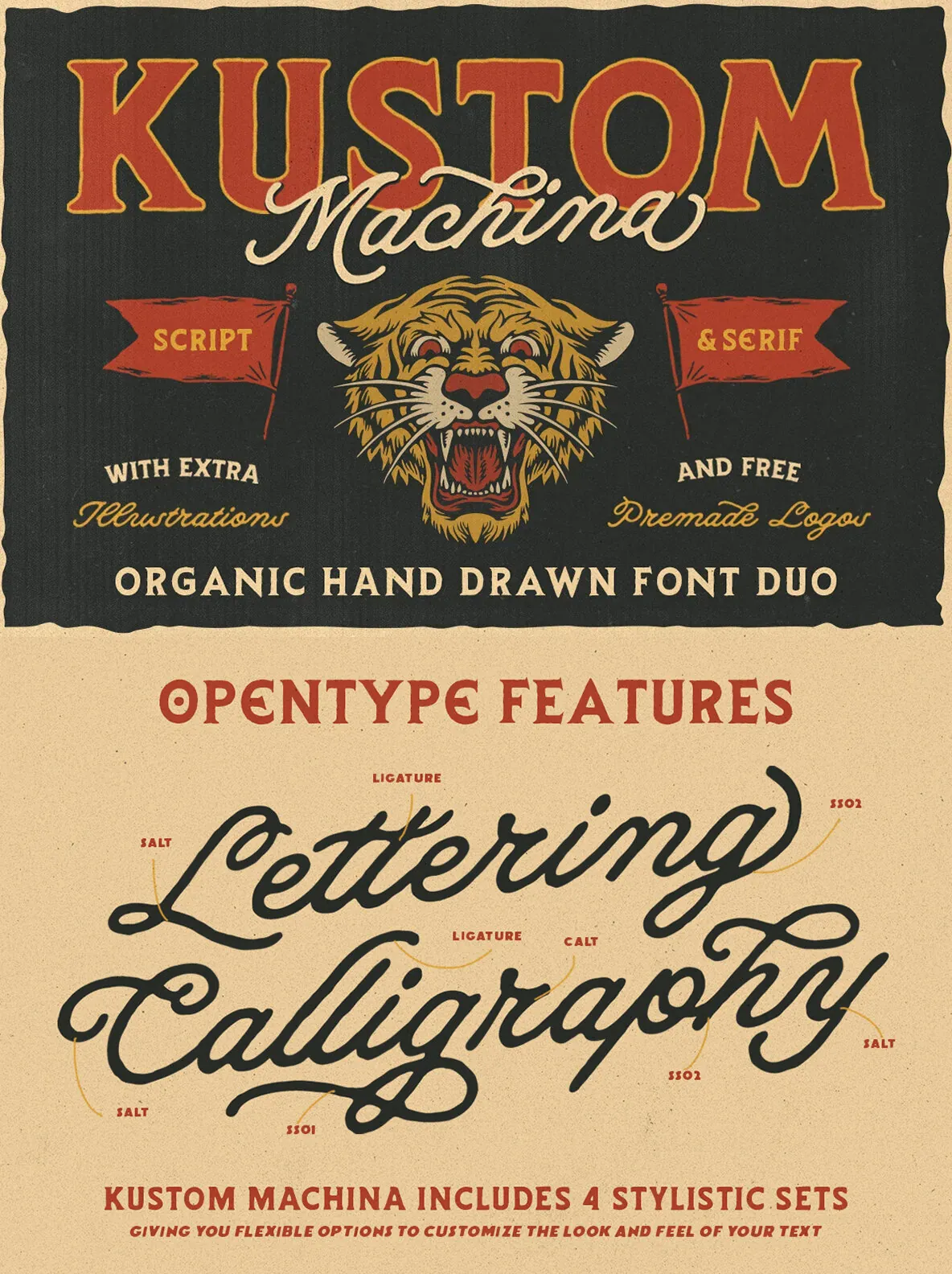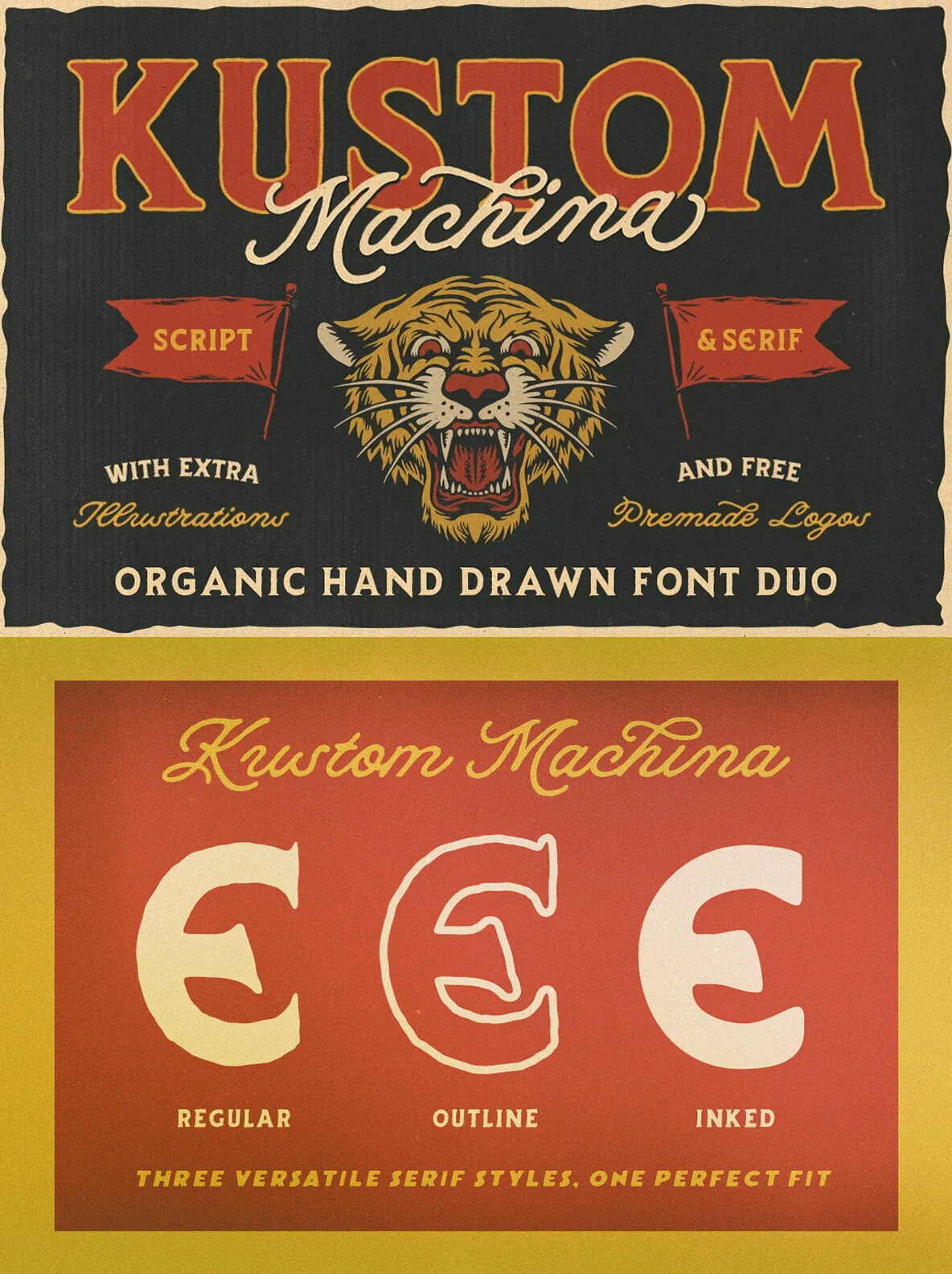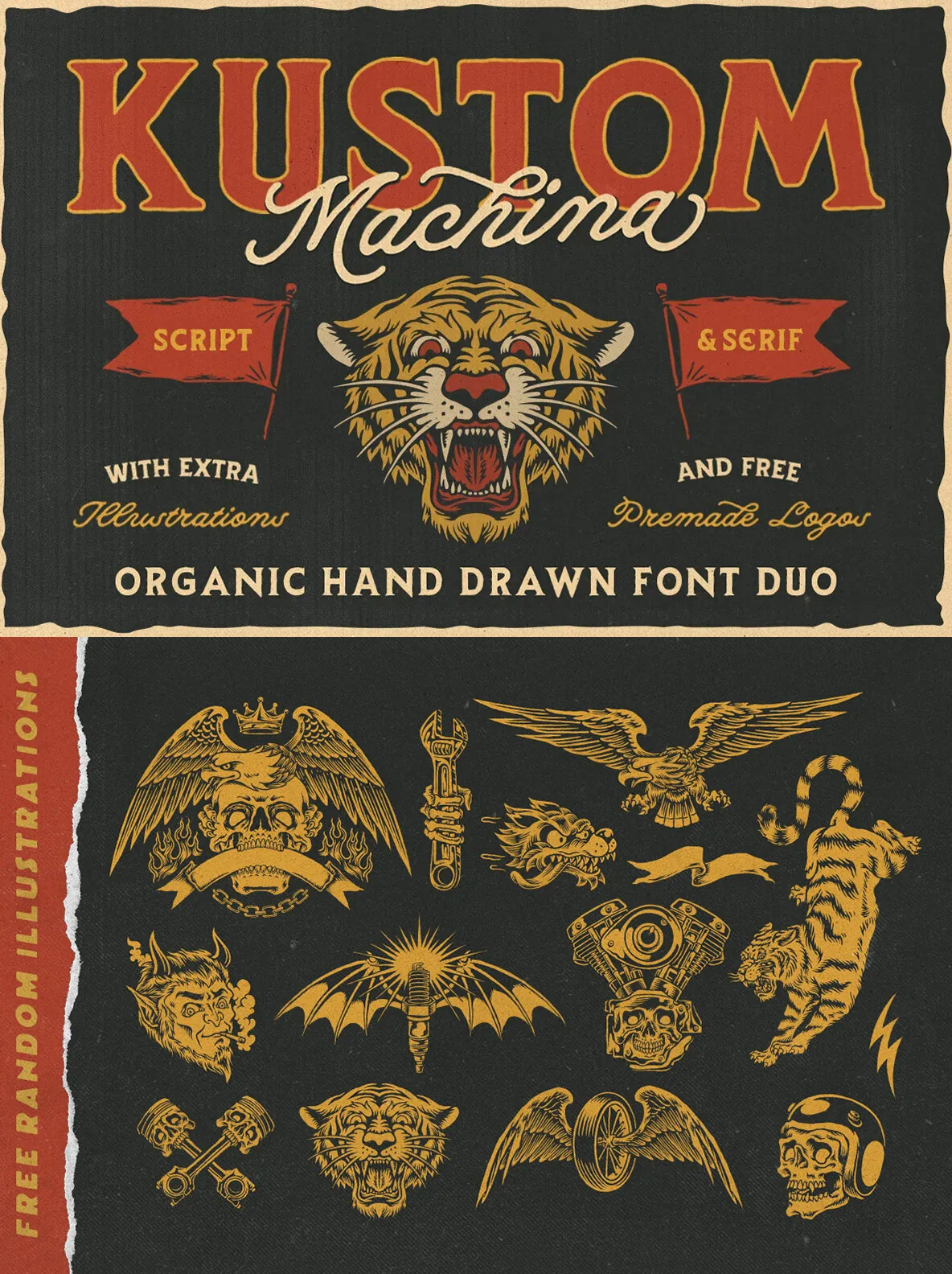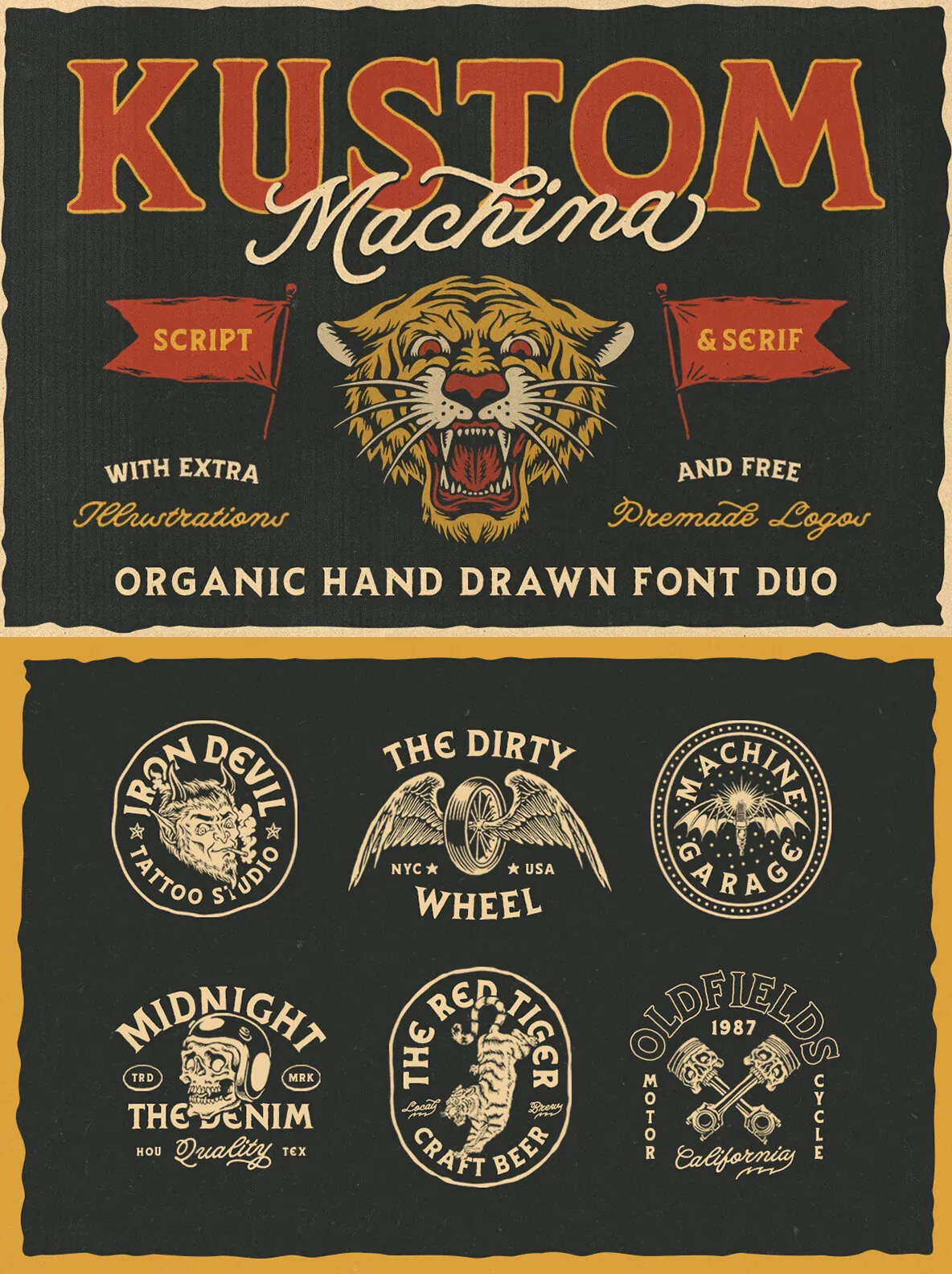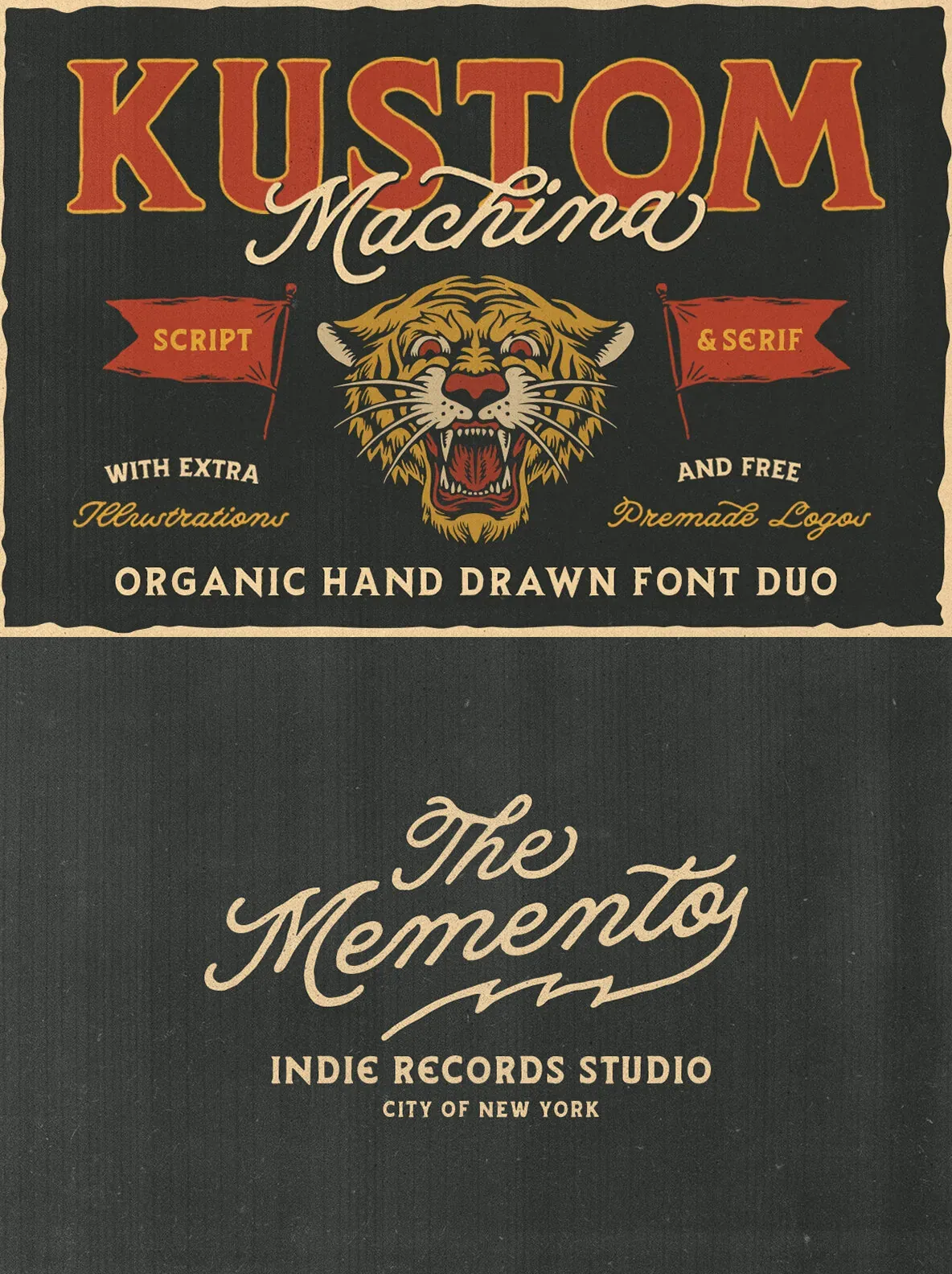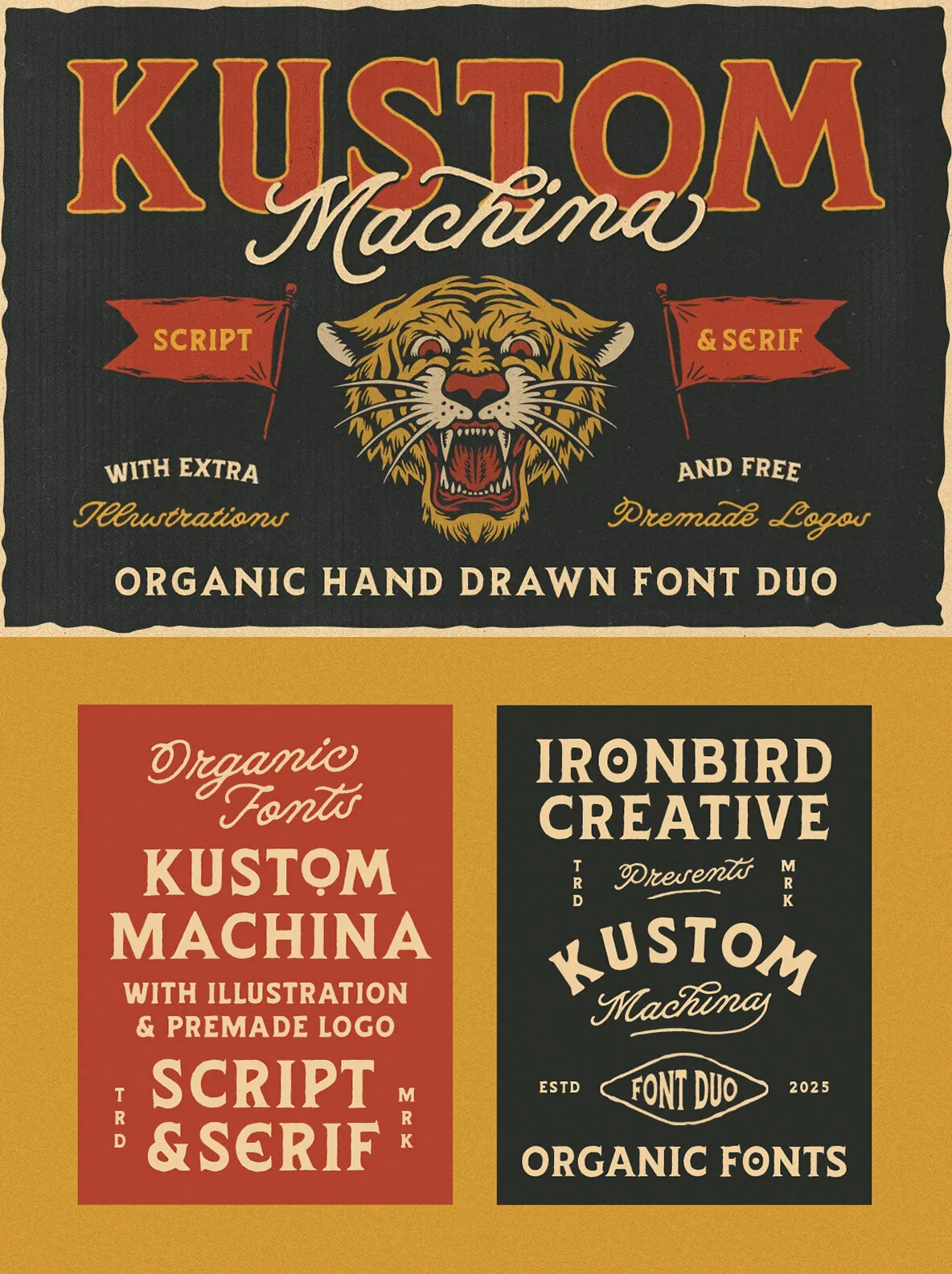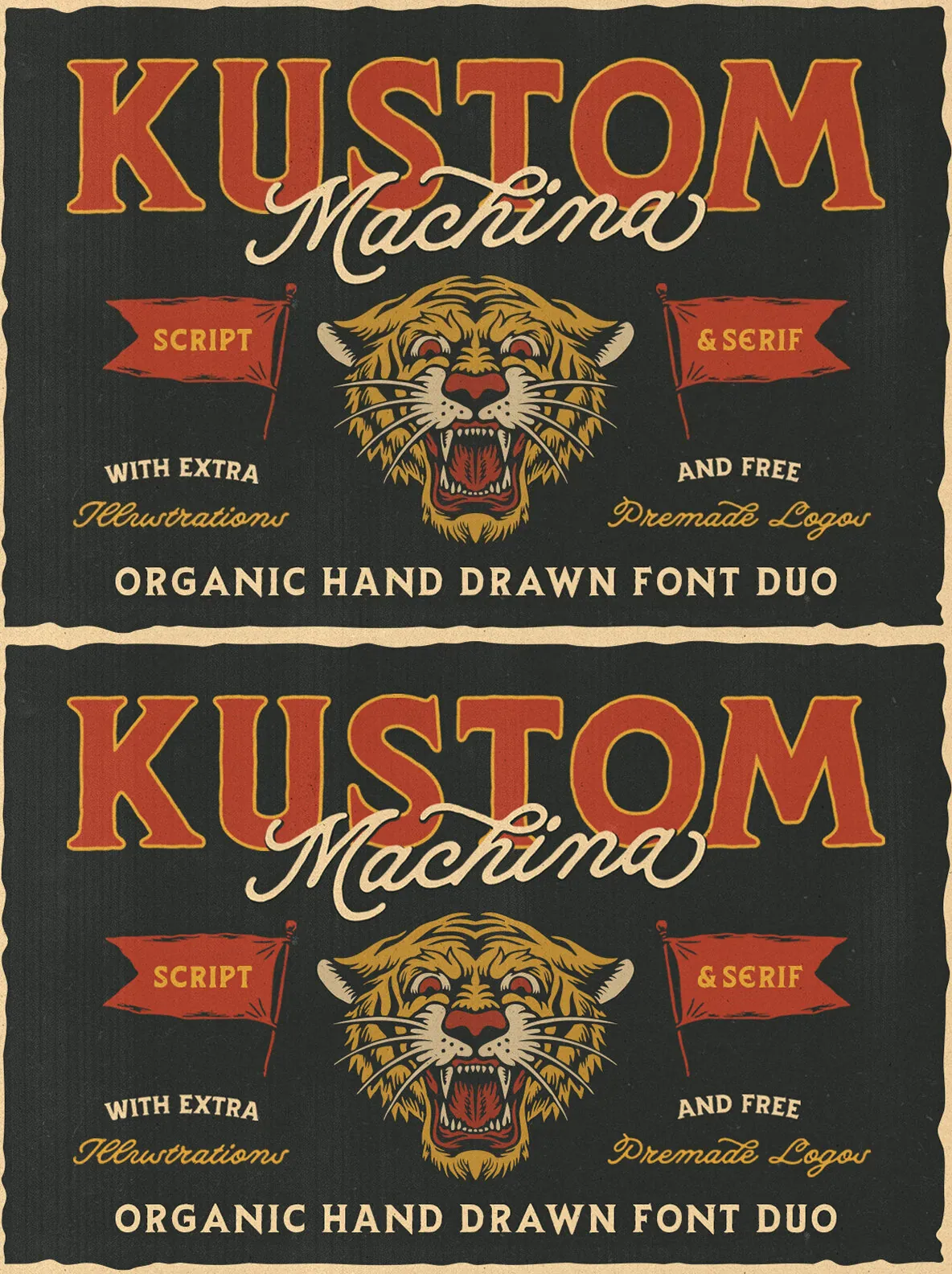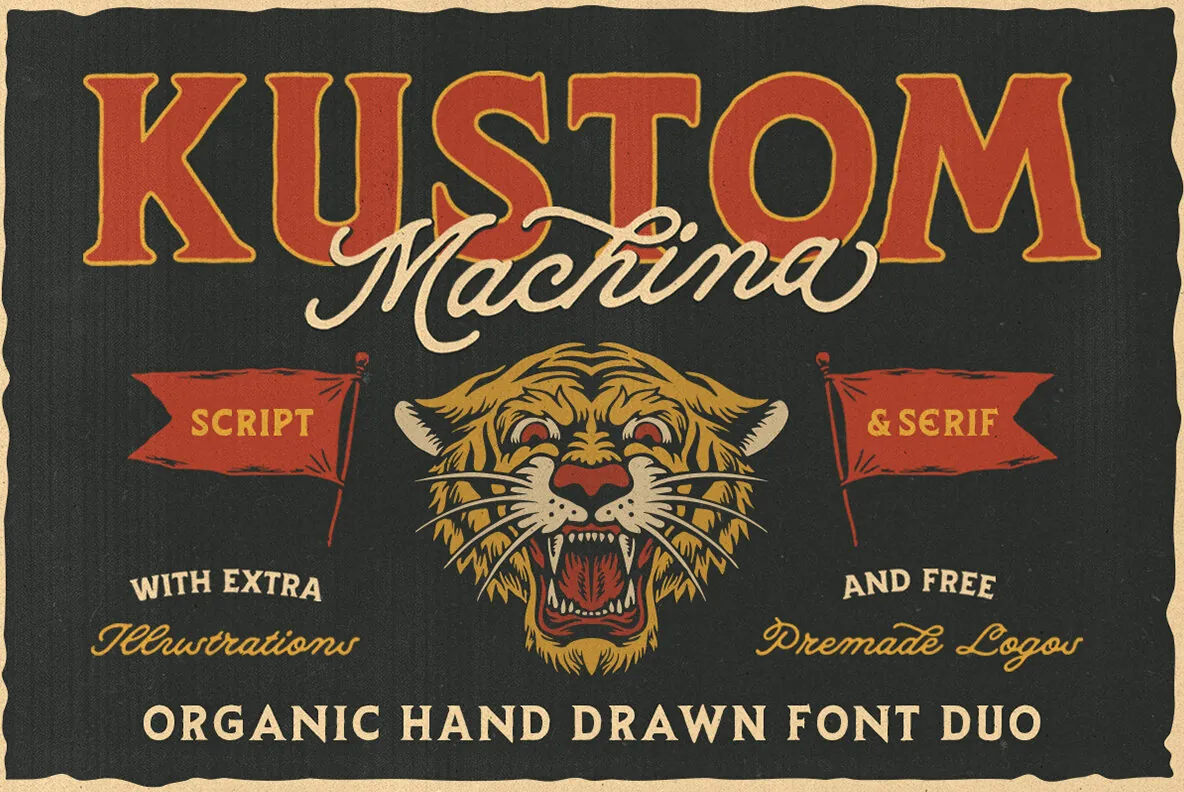
Kustom Machina: Artisanal Typeface for Diverse Projects
Kustom Machina seamlessly blends Serif and Script styles with bonus illustrations and premade logos, ensuring your creations make a statement. Designed to exude an authentic handcrafted essence, this typeface is perfect for branding, packaging, posters, apparel, labels, and logos.
Kustom Machina Regular
Kustom Machina Script
Kustom Machina Inked
Kustom Machina Outline